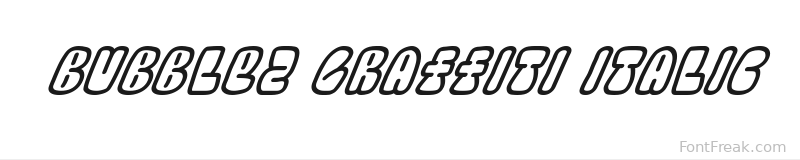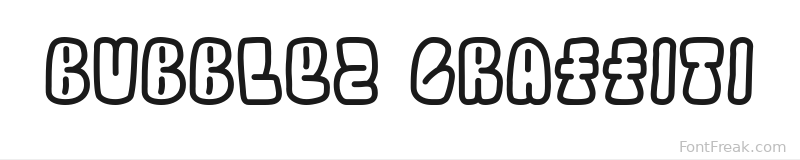
Bubblez Graffiti
Bubblez Graffiti Italic
Bubblez Graffiti is a distinctive display font created by GGBot, characterized by its playful and vibrant style that captures the essence of urban art. This font falls into the decorative category, making it ideal for projects that aim to attract attention and convey a sense of fun and creativity. The visual characteristics of Bubblez Graffiti include a bold stroke weight with a consistent thickness, giving it a strong presence. The rounded, bubble-like shapes add a whimsical touch, while the slight italic slant introduces a dynamic feel. The spacing between characters is well-balanced, ensuring readability while maintaining a lively aesthetic.
This font is perfect for various use cases, particularly in creative fields. It shines in scenarios such as designing promotional materials for street art festivals, creating eye-catching social media posts, and enhancing the visual appeal of music album covers. Additionally, Bubblez Graffiti is an excellent choice for custom merchandise, like T-shirts and stickers, where a bold statement is desired. Its playful nature makes it suitable for children’s party invitations and other fun-themed events.
The target audience for Bubblez Graffiti includes graphic designers looking to infuse creativity into their projects, small business owners wanting to make their brand stand out, and content creators seeking unique typography for their online presence.
What sets the Bubblez Graffiti font apart is its ability to evoke a sense of joy and creativity, making it a versatile choice for anyone looking to add an urban flair to their designs. With a Bubblez Graffiti font free download available, designers have the opportunity to experiment with this exciting typeface and bring their creative visions to life.